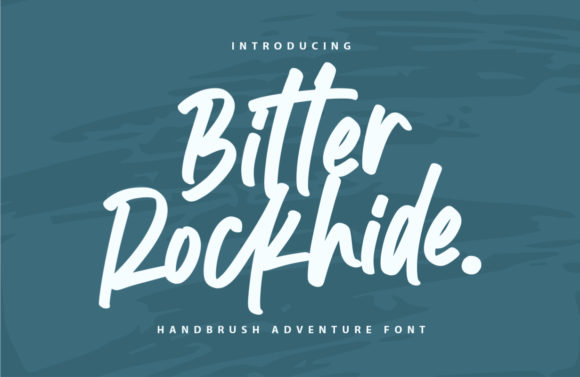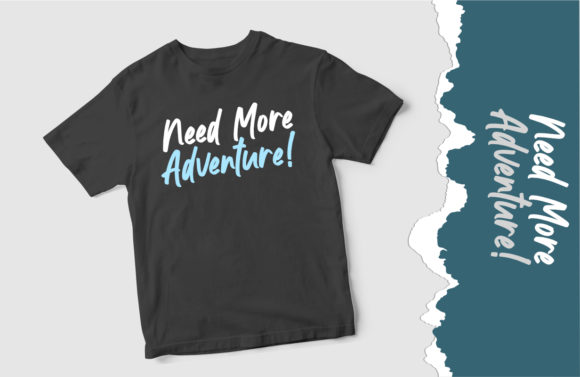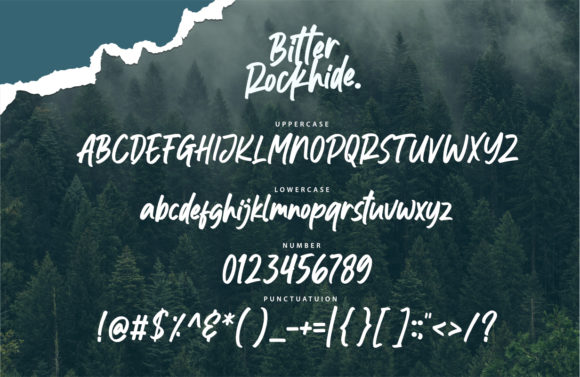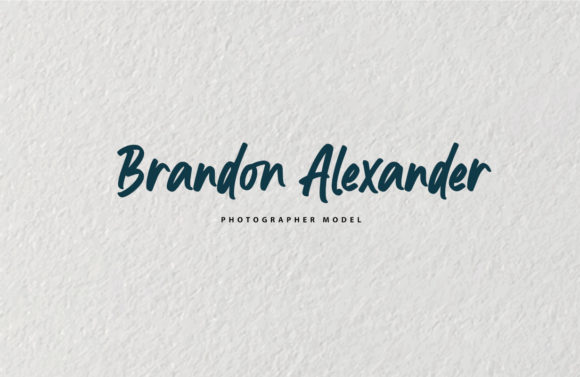
Bitter Rockhide Font: A Playful Handwritten Font for DIY & Cricut Projects
About the Bitter Rockhide Font
Let us introduce you to Bitter Rockhide Font, where timeless design meets modern craftsmanship. Bitter Rockhide is a casual, fun handwritten font, created by using a brush pen. Clean and a little bit quirky, this font is the perfect fit for all of your logos, branding, social media, and crafty DIY projects.
Bitter Rockhide Font Usage Examples
Bitter Rockhide Font Example